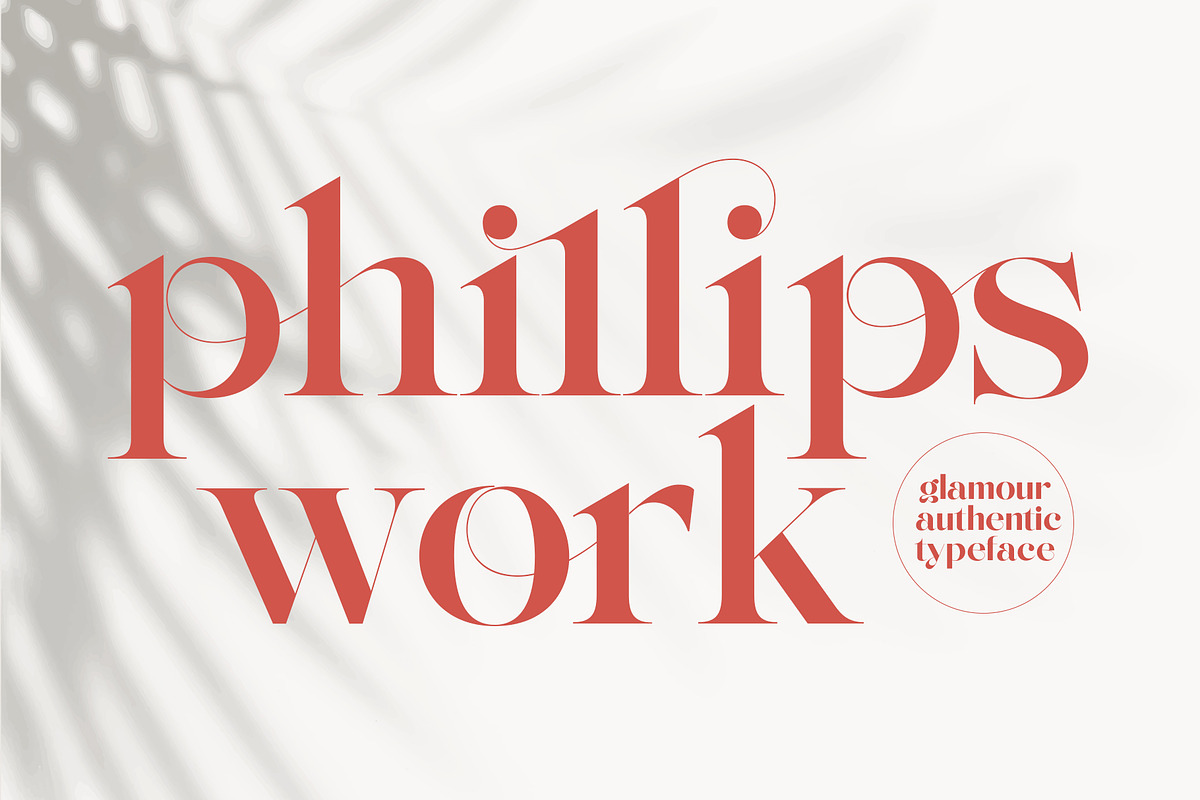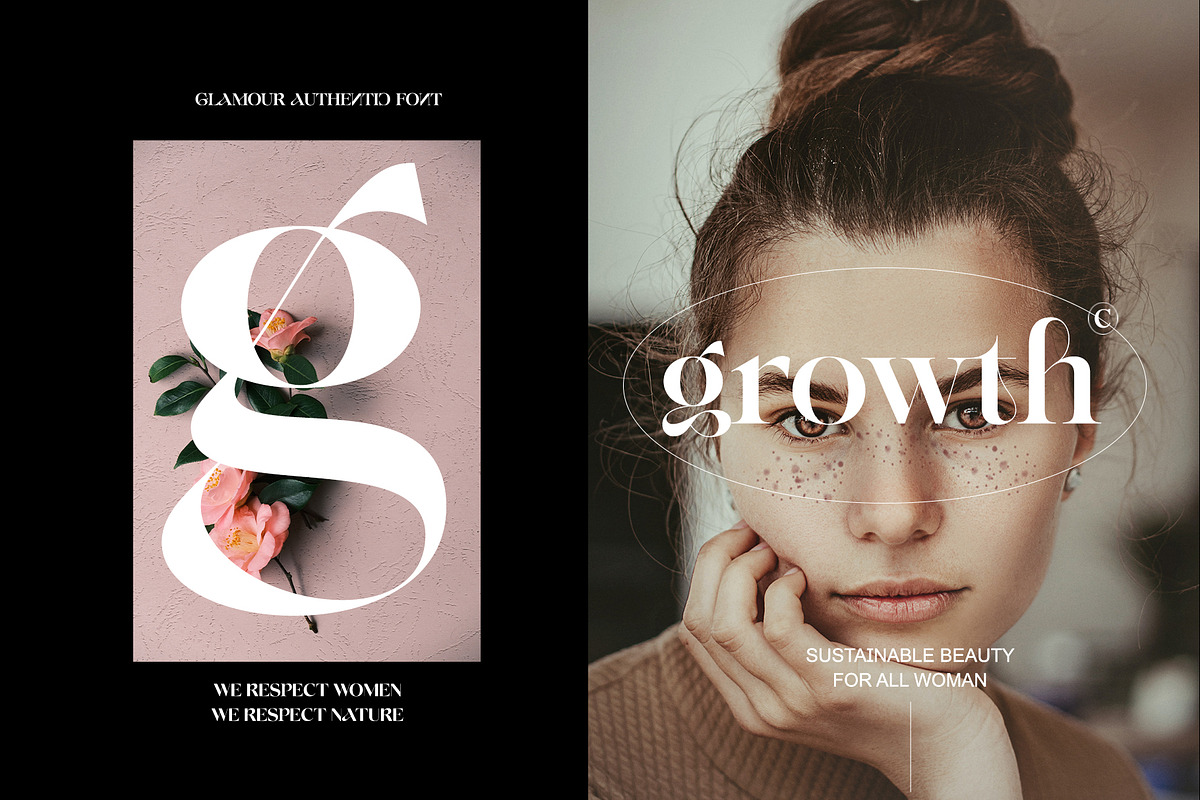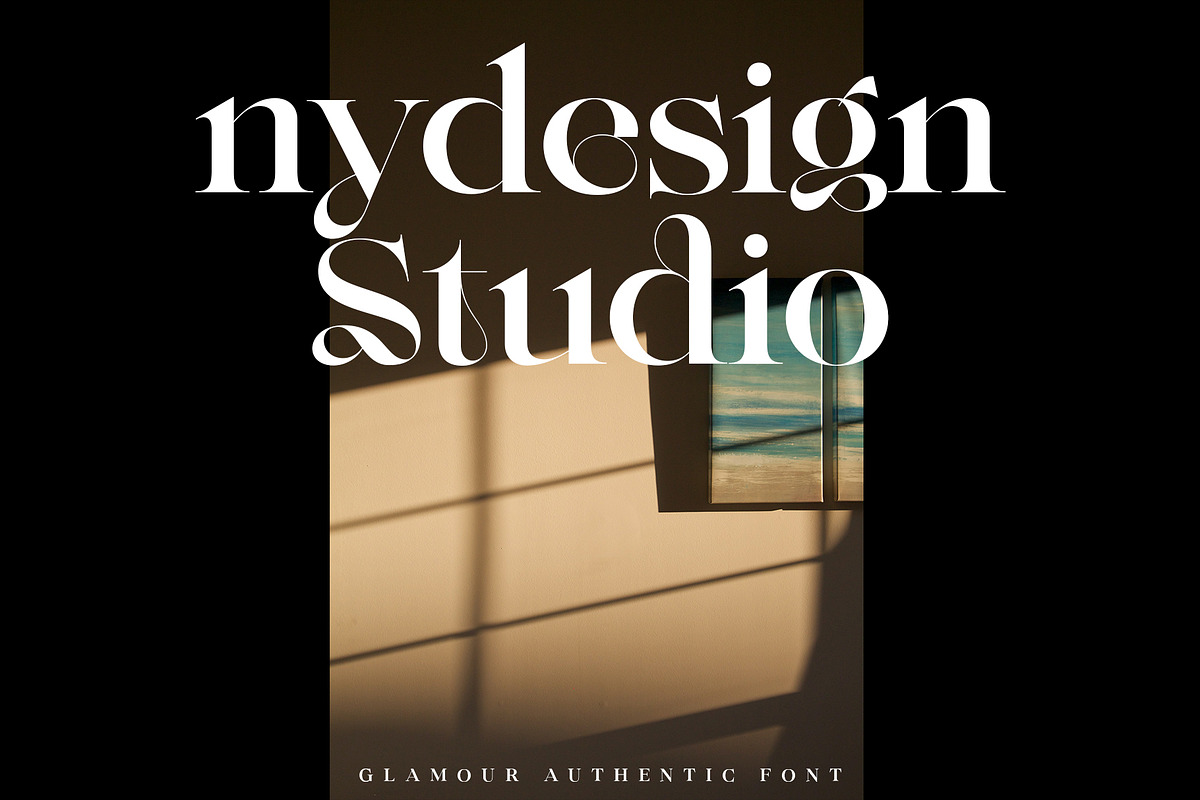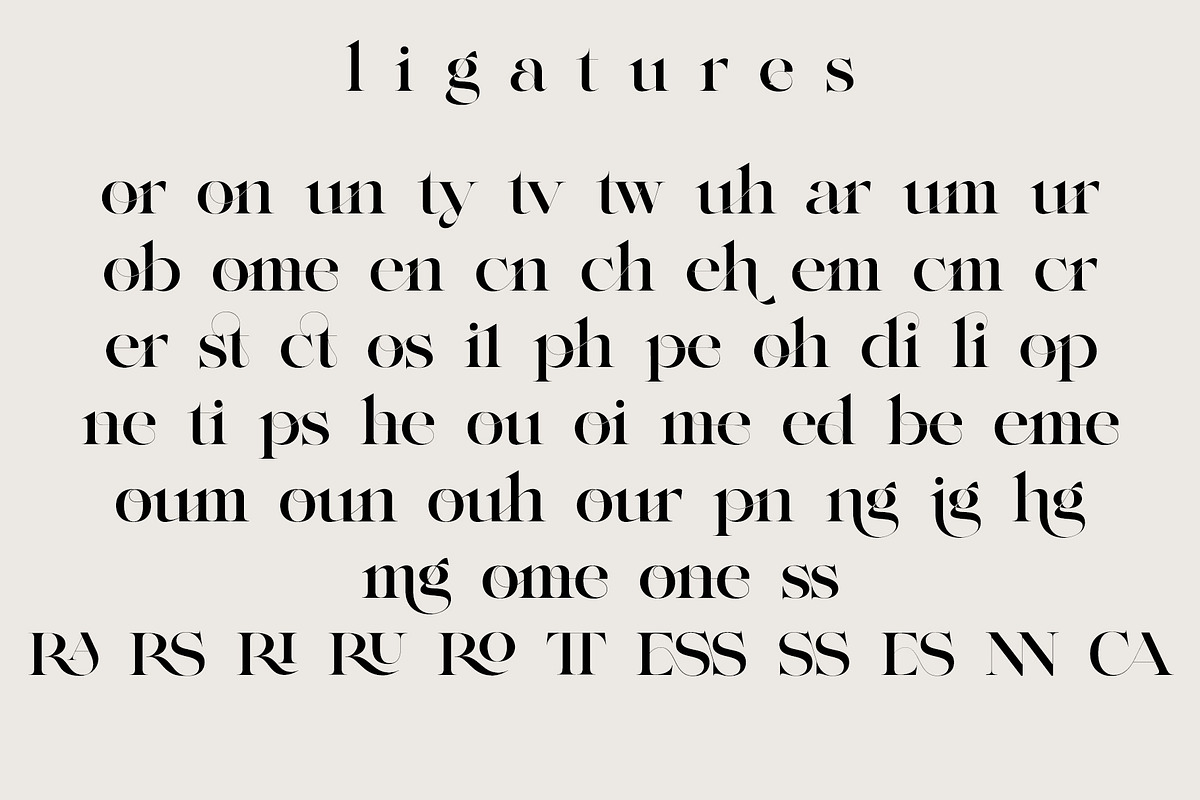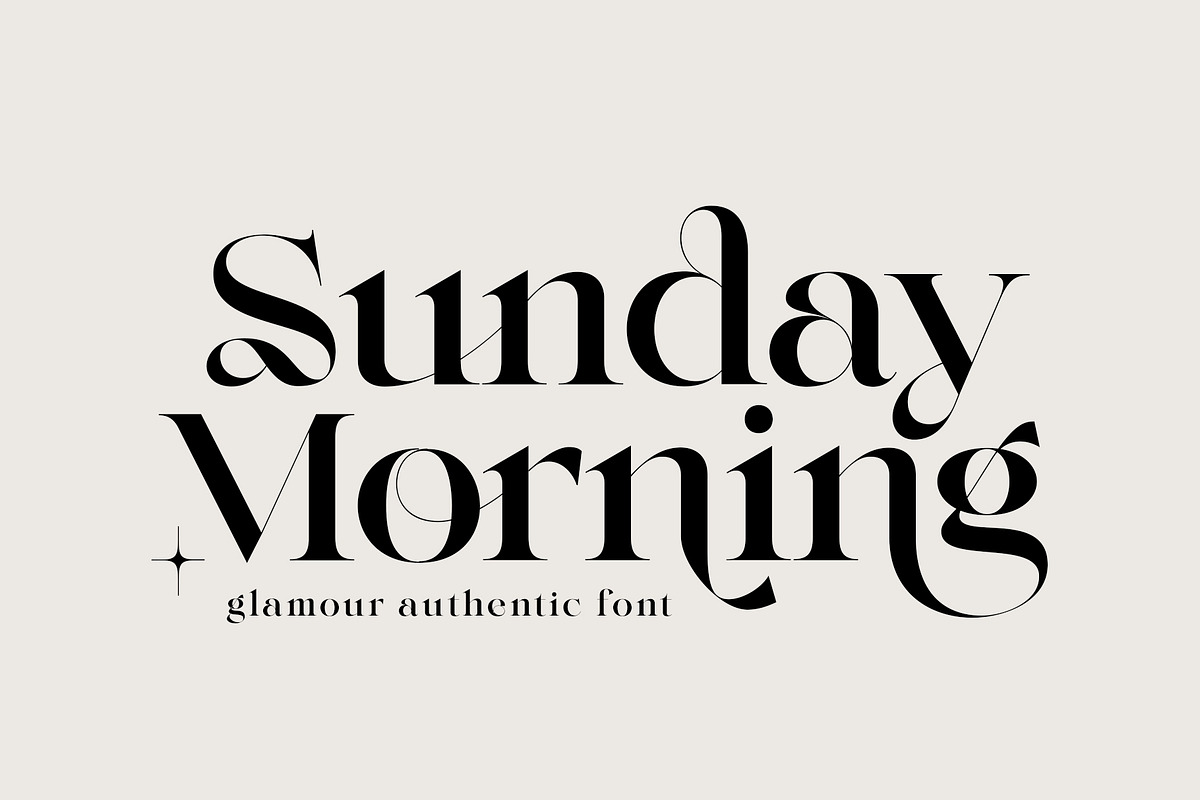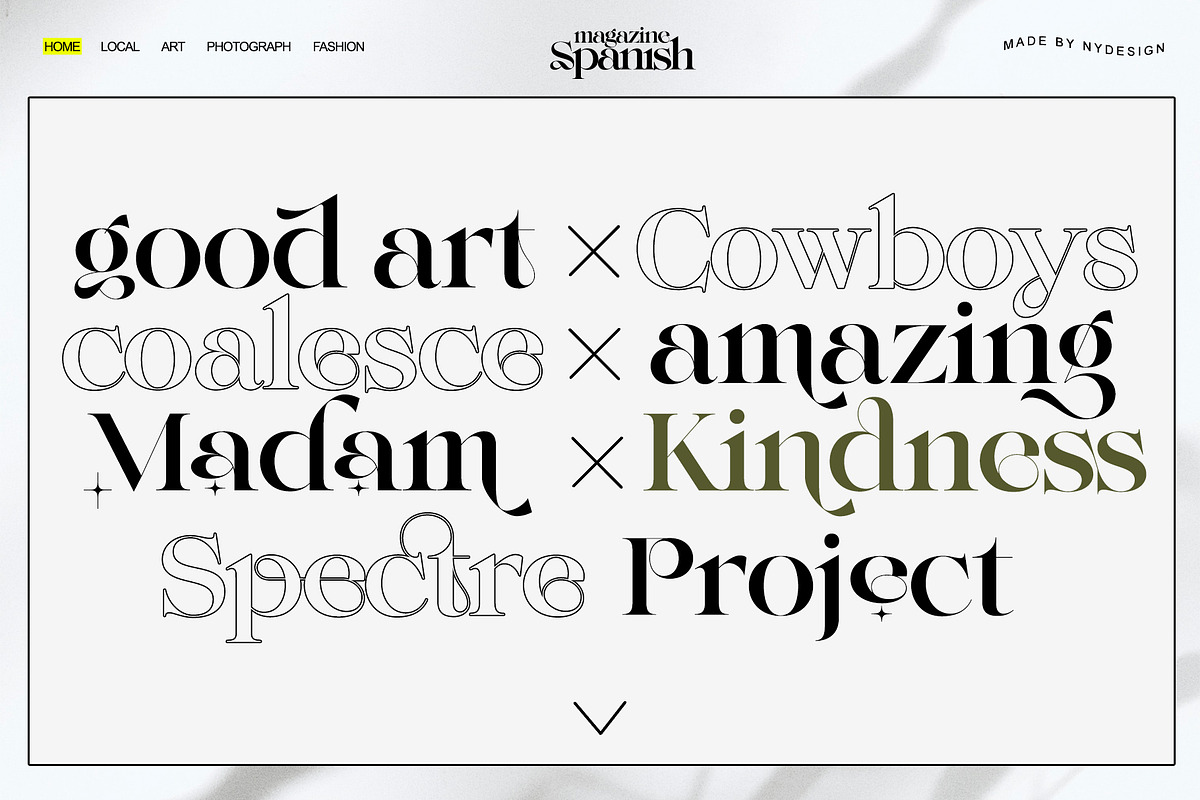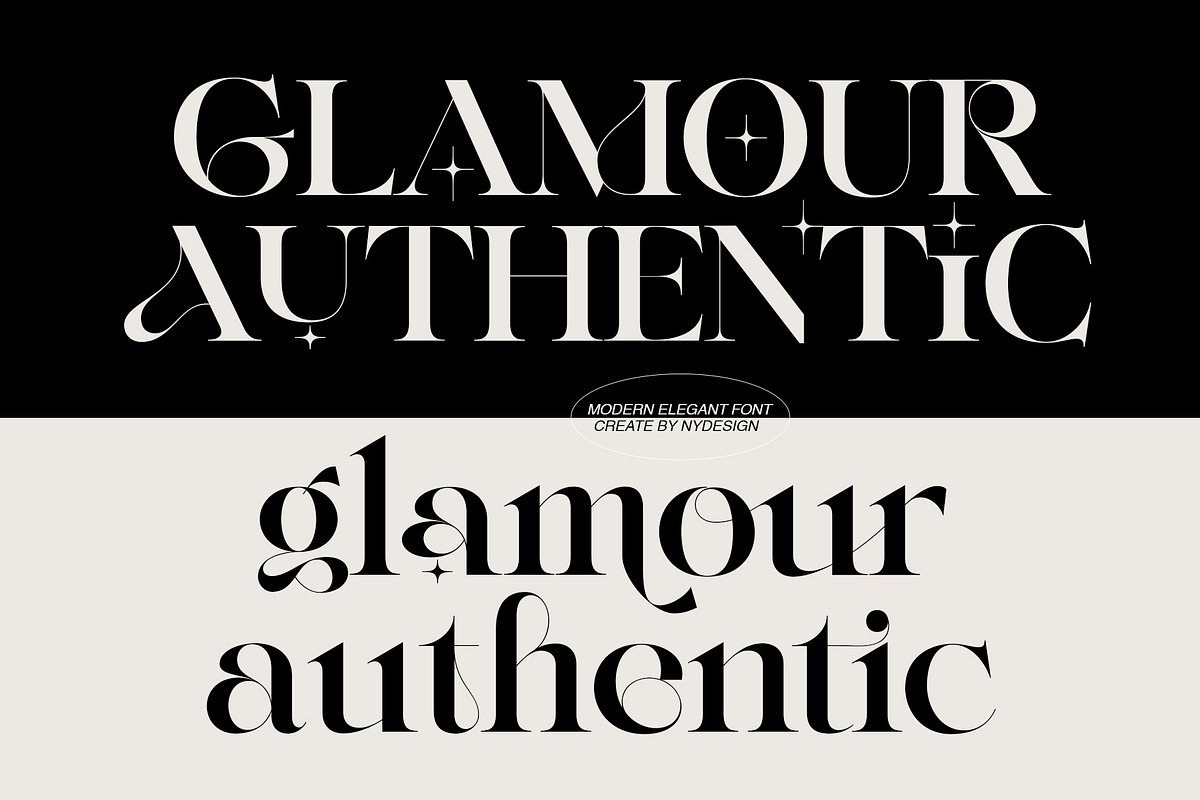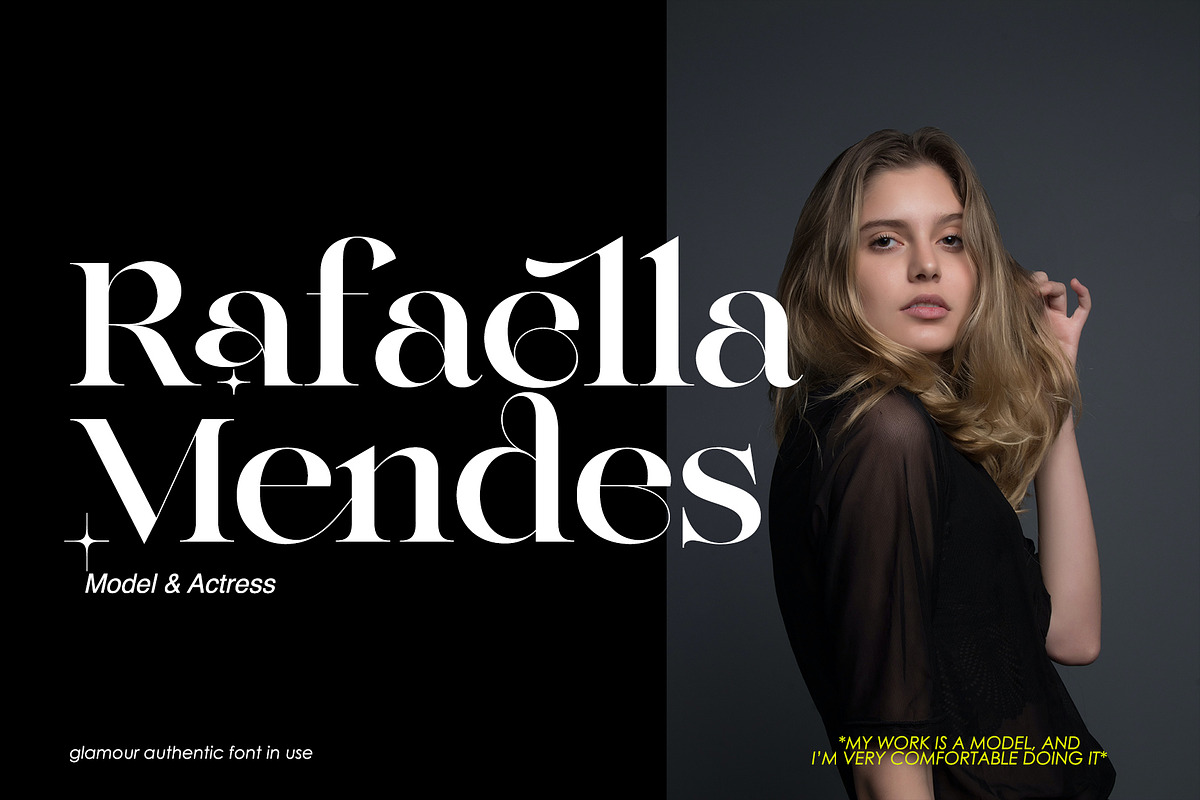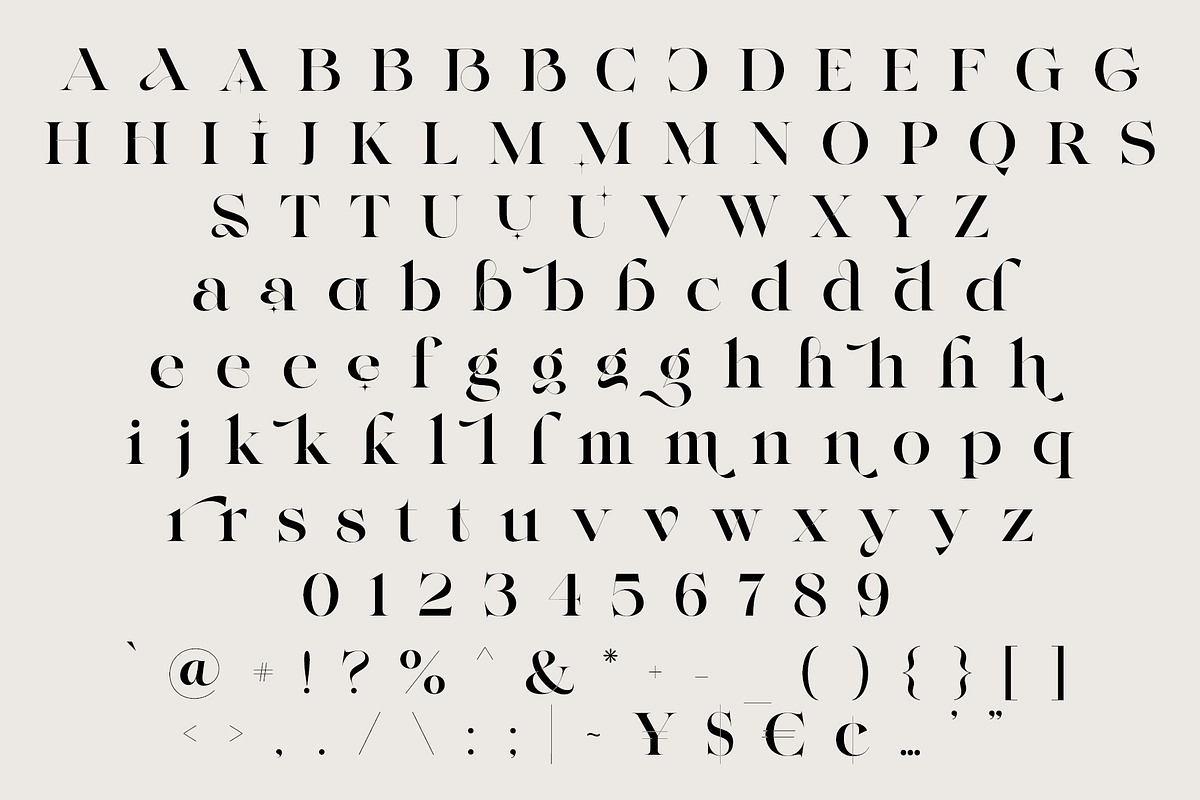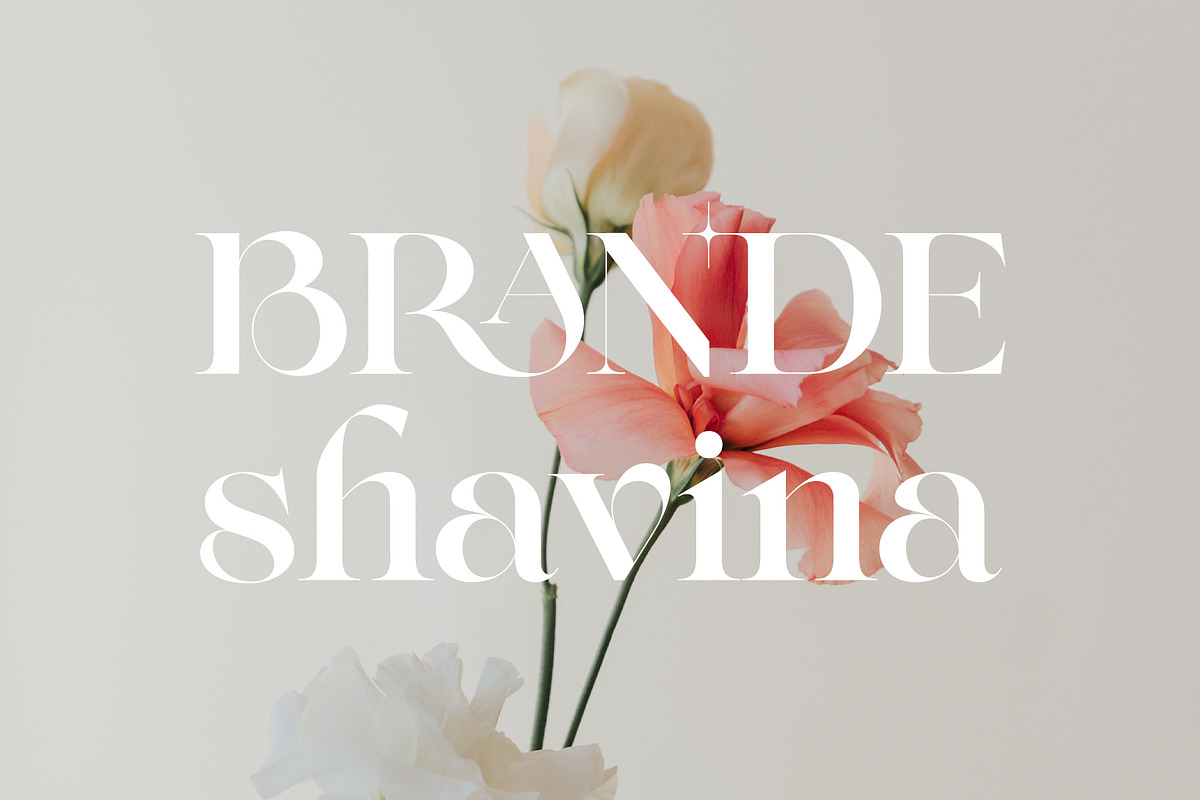
NY Glamour Authentic
Hello, this time we would like to introduce a new product. namely "Glamour Authentic", a Serif display font that has a classic, feminine, and elegant style wrapped with a beautiful Alternate stylist.
The Glamour Authentic font is perfect for various projects like logos & branding, invitations, stationery, wedding designs, social media posts, advertisements, printed quotes, product packaging, product designs, labels, photography, watermarks, special events or anything else.